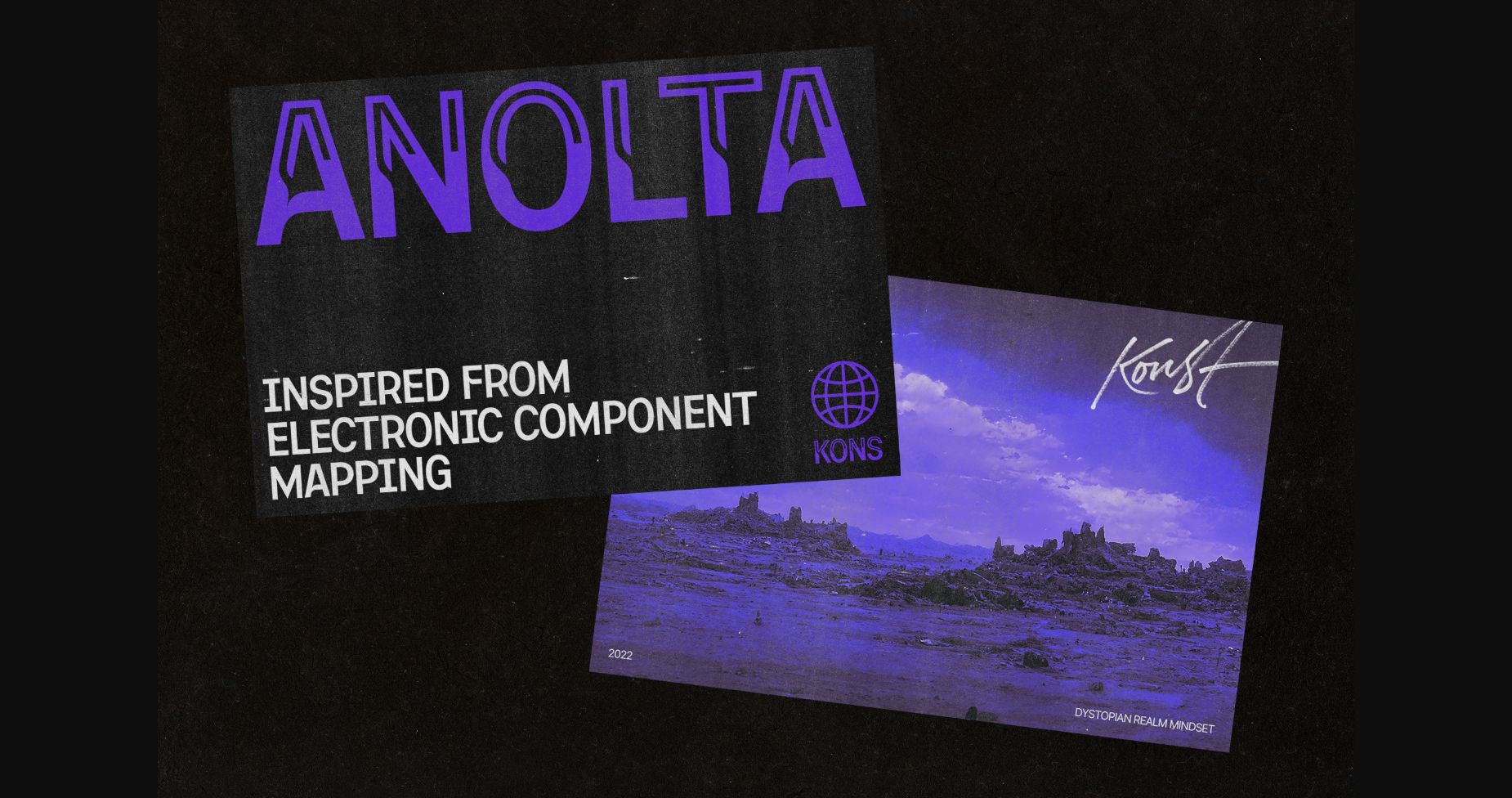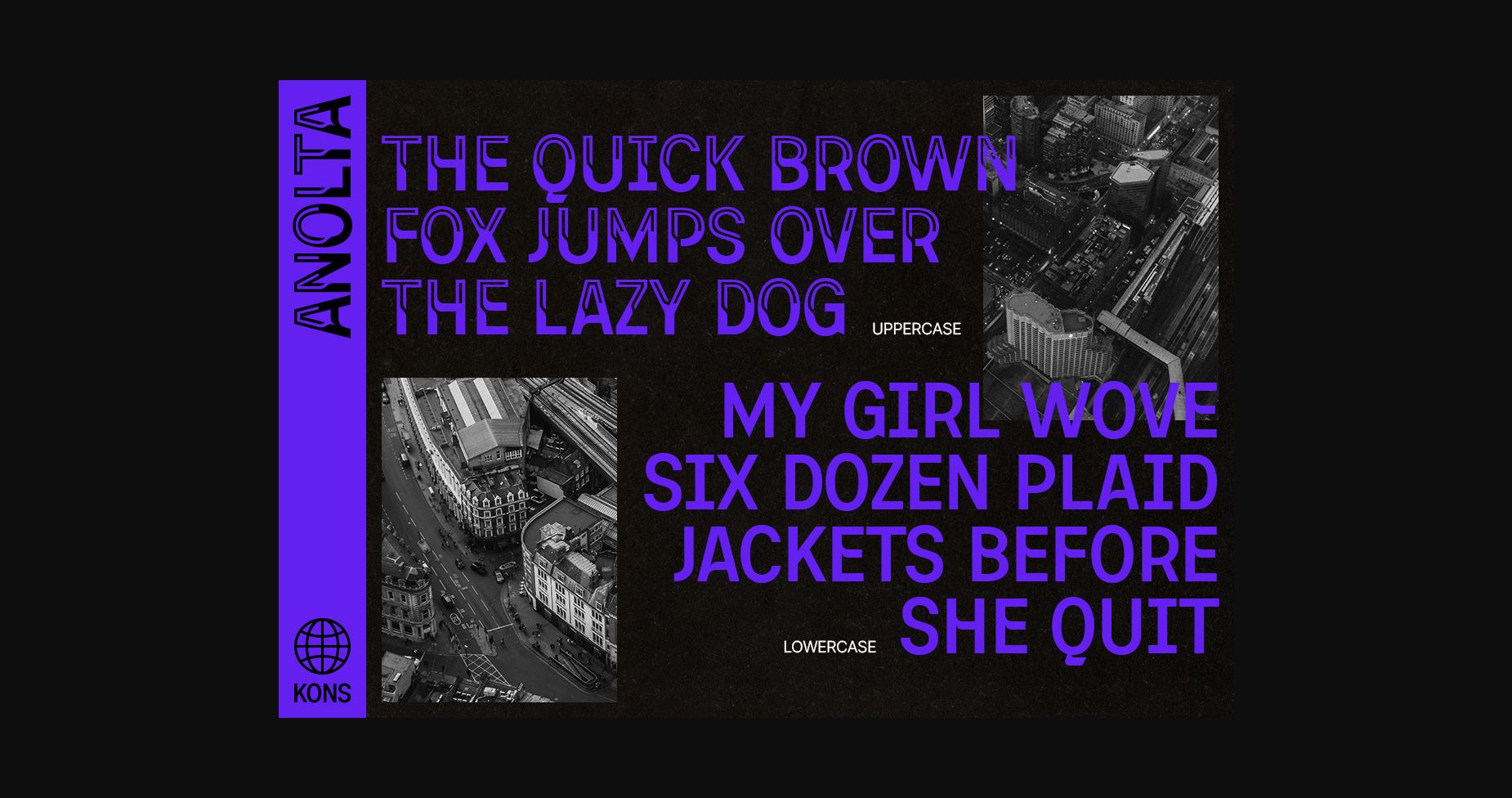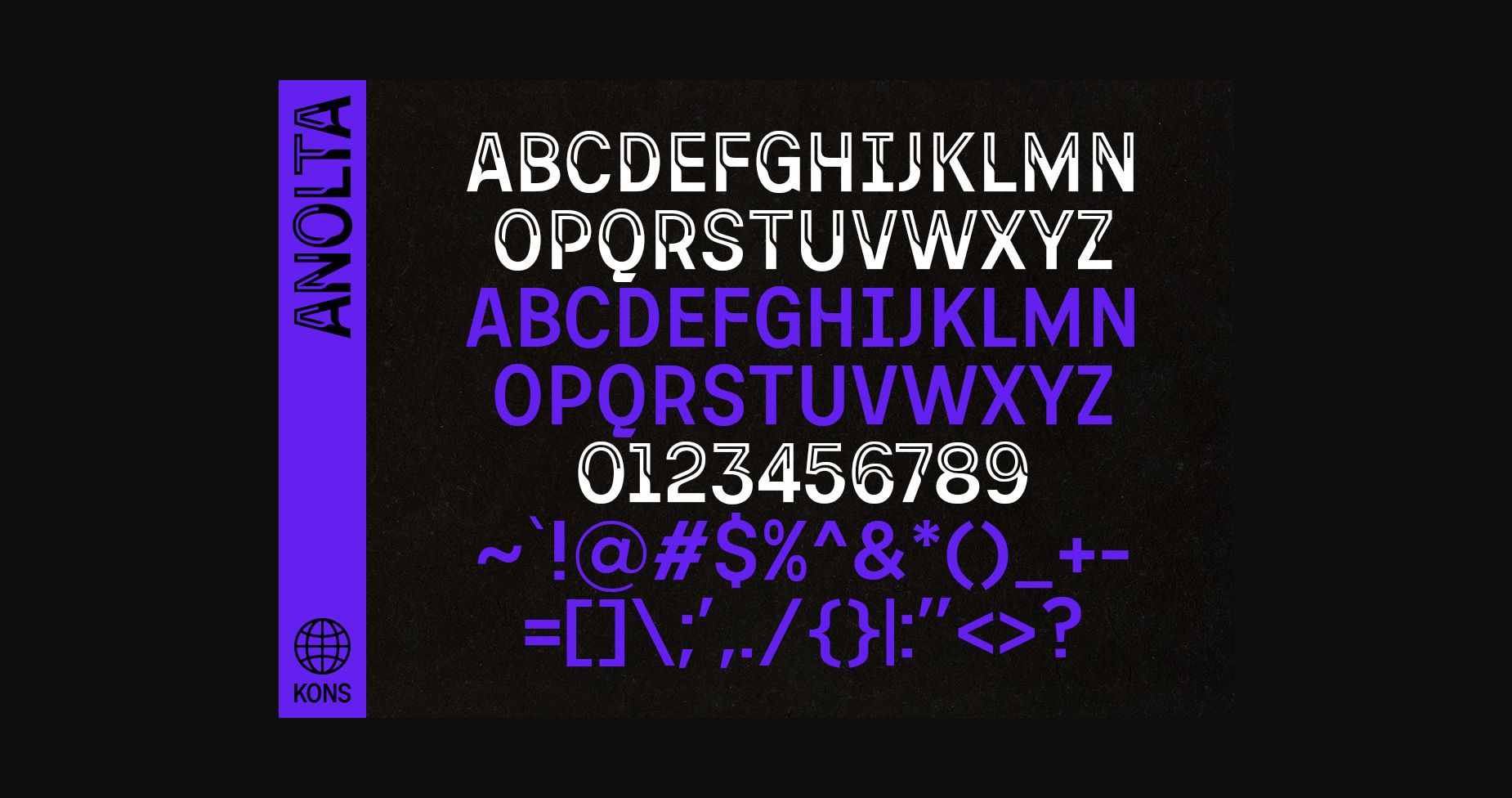
Anolta Font
About Anolta Font
Anolta is inspired by the anti-design trend nowadays. The form of a typical sans serif font was tweaked into a new look to step up your visual game in the market.